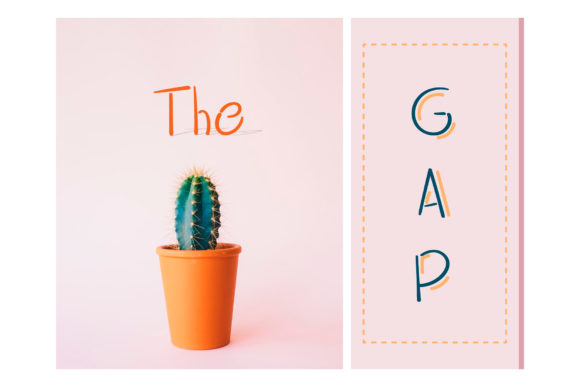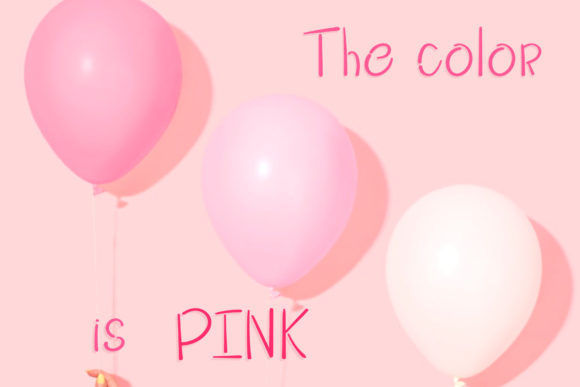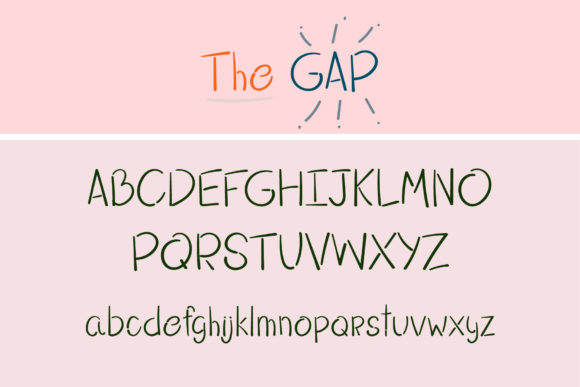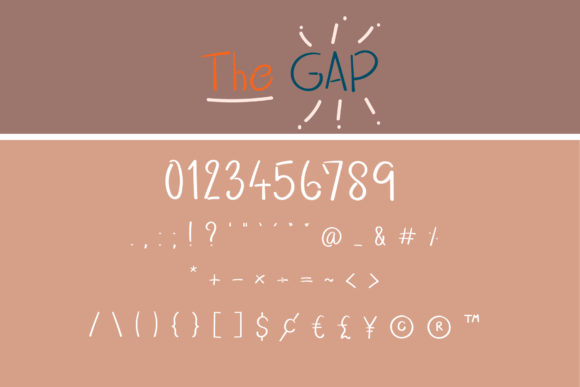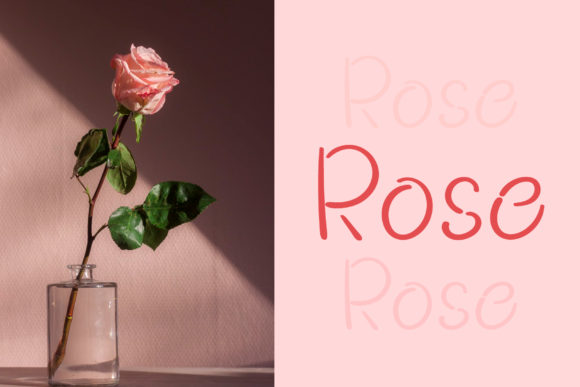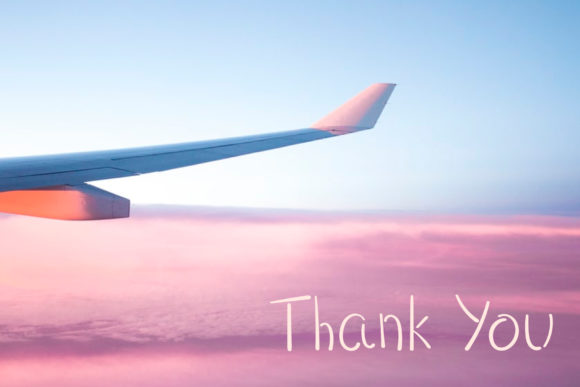
The Gap Font
About The Gap Font
The Gap is a cute and casual handwritten font with an incredibly friendly feel. This font is the perfect fit for all of your logos, branding, social media, and crafty DIY projects.